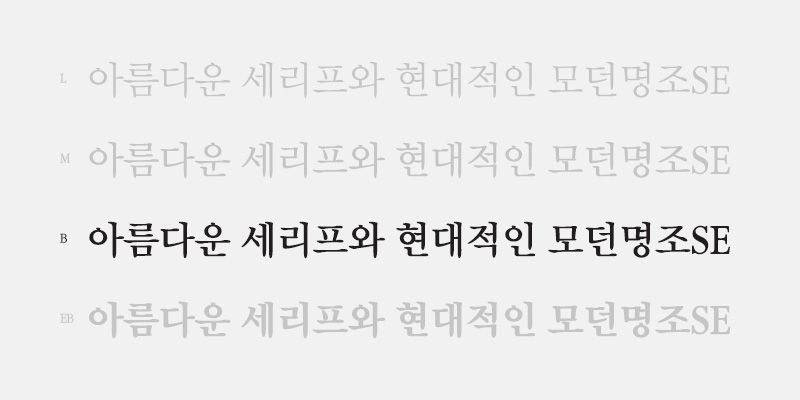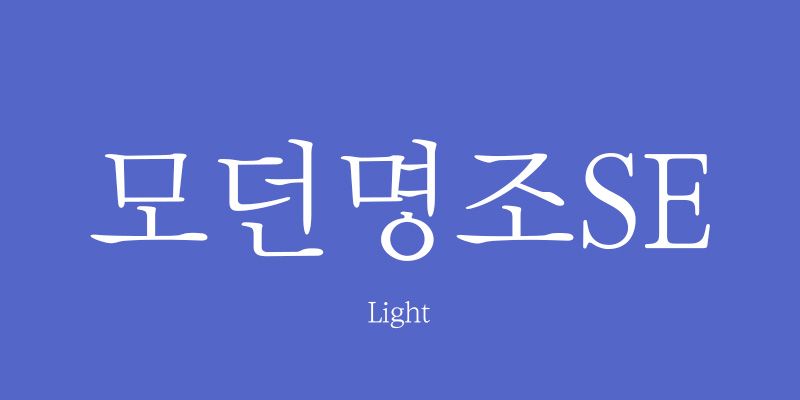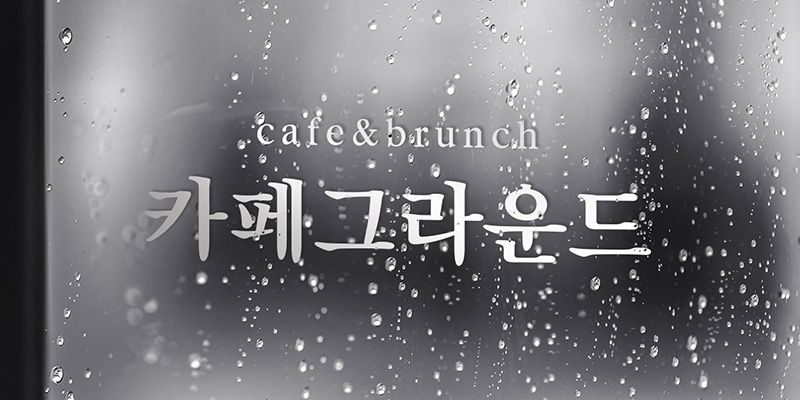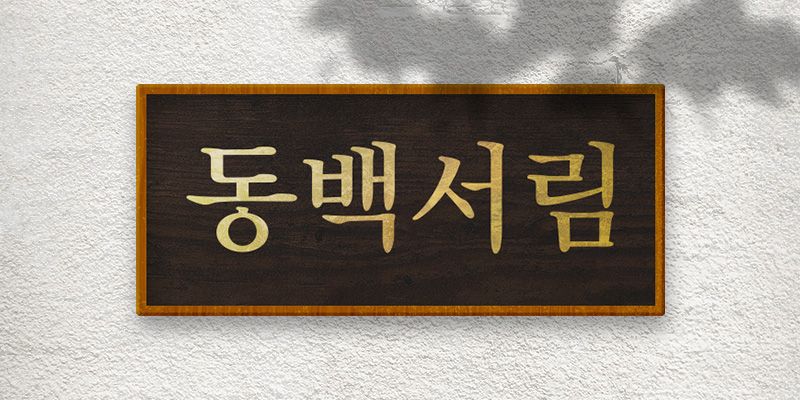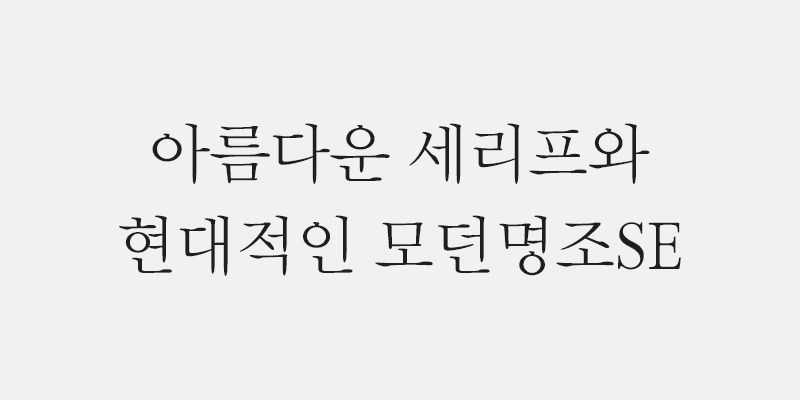
RixMMj SE is a modern but classical font. It is a Myungjo font that feels both modern and sophisticated. The “ㅊ” and “ㅎ” characters are represented with vertical top lines to emphasize the modern feel.